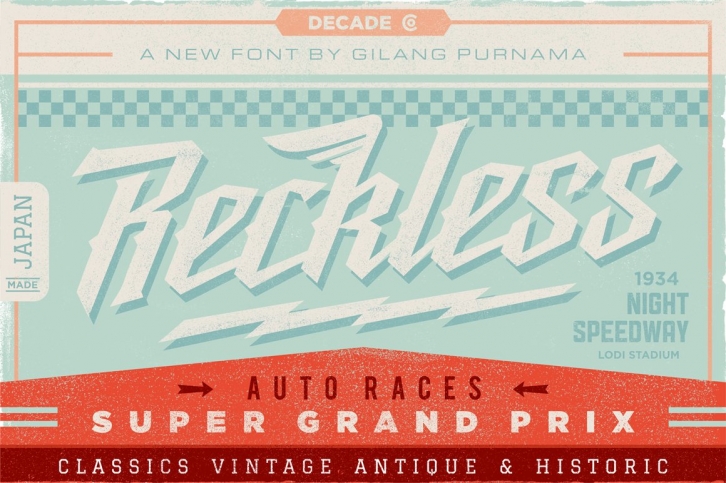
Reckless is hybrid connected geometric typeface between script, blackletter and tattoo feel, it can be used in logos, games and graphic related to cars, automotive, Detroit, 1940, 1950, 1960, vintage, retro, classic and old machines